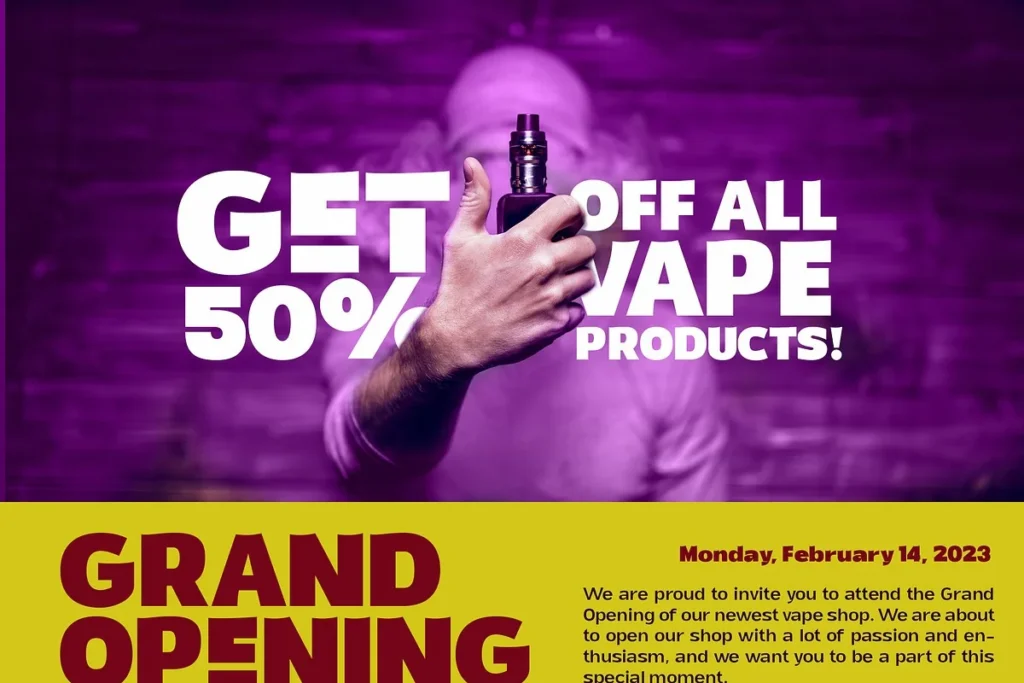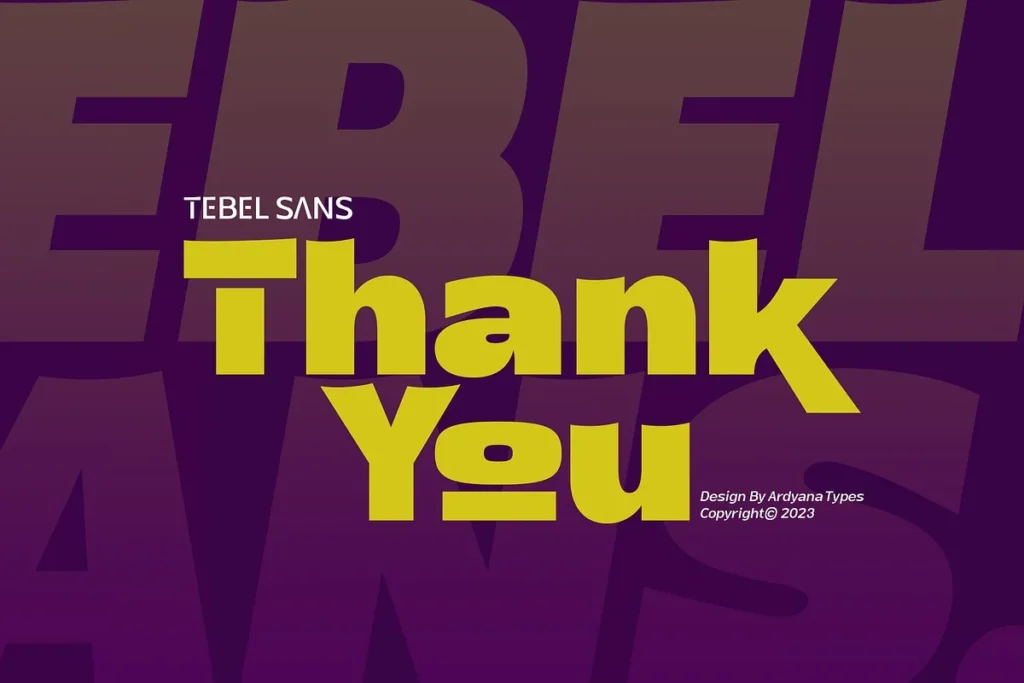
Tebel Sans Serif Font Family is an ultrabold sans-serif font perfect for all kinds of designs. This font is ideal for your designs because it comes in two types—regular and italic—as well as nine different thickness options.
Its unique thickness makes your design look like a bold and elegant title. It is also a useful body text because OpenType supports a wide range of font families and features like multilingual ligature.
Tebel Sans Serif Font Family, it becomes even more appealing and useful for a variety of graphic designs. Tebel Sans has a uniqueness that makes your designs look more powerful and modern.